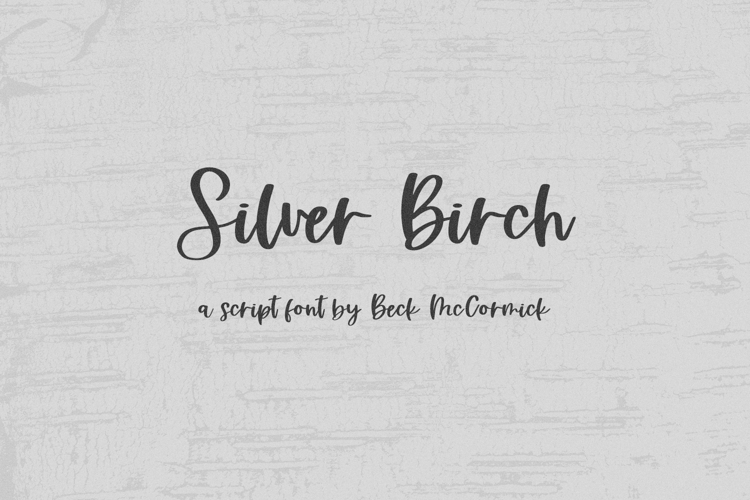
Silver Birch Script
Silver Birch Script is a modern calligraphy font. This cursive font is casual in feel & fairly legible. Silver Birch is perfect for logos & branding, greeting cards, painted banners, digital planners, note-taking apps, Canva, Cricut projects, Silhouette projects, designing SVG files, laser cutting projects, & more.